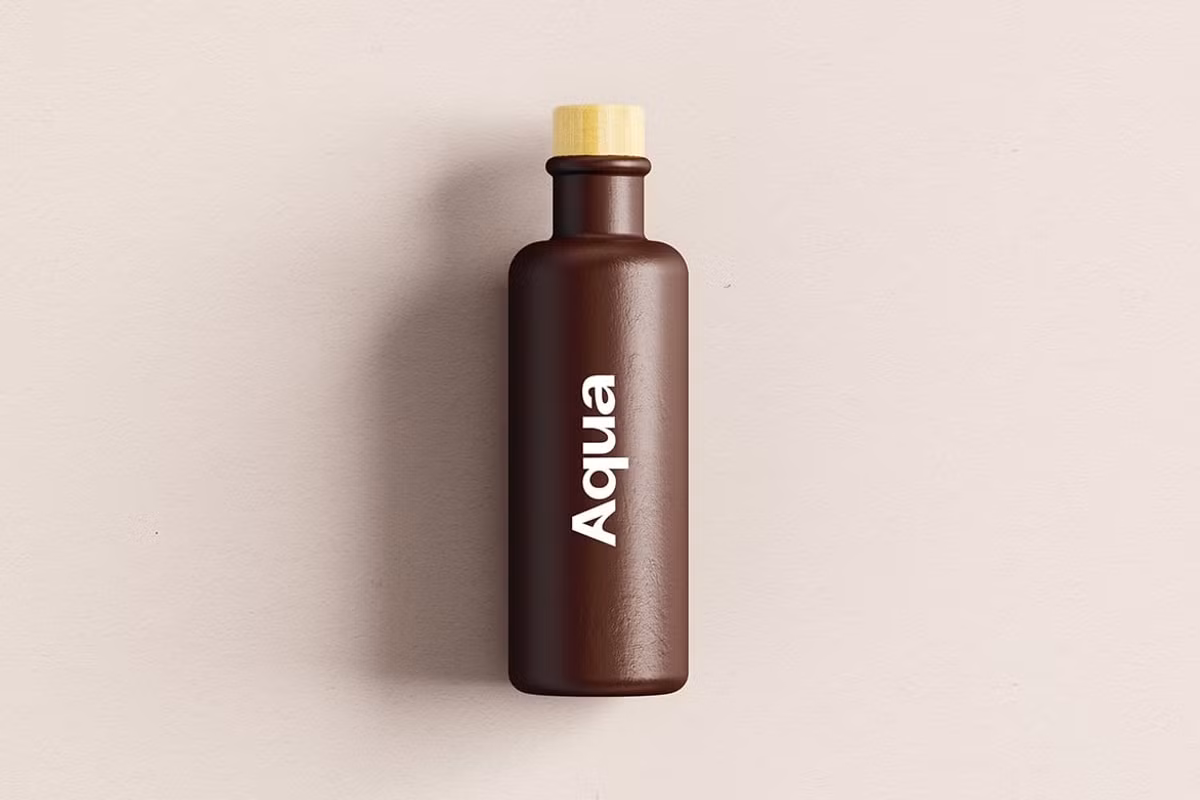
After - Modern Display
After: Sleek Sans-Serif Typeface for Modern Design Projects
Introducing After Typeface
After is a simple yet stylish font that’s perfect for modern design projects. It’s great for designers and creatives who want to add a touch of sophistication to their work. This font is all about balance – it’s easy on the eyes and works well with all sorts of projects, from branding to web design.
With its clean lines and modern feel, After is a versatile font that can enhance any design without overpowering it. Whether you’re working on a website, a logo, or something else entirely, this font is a great choice because it’s both beautiful and functional. It’s ideal for anyone who wants to create something that looks great and works well too.
Example of modern design using After Typeface
Design Style of After
The design of After is characterized by its elegant and minimalist approach. This sans-serif typeface features balanced proportions and refined letterforms that ensure outstanding readability. The clean lines and contemporary feel of After make it suitable for both print and digital media.
Its modern aesthetic seamlessly fits into any design context, allowing your projects to shine with professionalism and clarity. The characters in After have been carefully designed to work well together, creating a consistent look throughout your design.
Character Sets and Versatility
After gives you a full set of characters, including big and small letters, numbers, and punctuation marks. This wide range makes it useful for many different design projects. You can use it to make logos, headings, presentations, or layouts for articles – it’s flexible enough to help you get your point across in the way you want.
• Uppercase and Lowercase Letters: Well-crafted modern letterforms that enhance readability.
• Numbers: A complete set of digits that complement the overall design aesthetic.
• Punctuation: Essential symbols included to provide a full typographic experience.
Character set example of After Typeface
With this complete character set, After ensures that your designs are not only visually appealing but also functional and communicative.
Use Cases for After Typeface
After is really versatile, which makes it perfect for all sorts of design projects. Here are some great examples of where After can take your work to the next level:
• Branding: Create memorable logos and brand identities with After’s modern and professional appearance.
• Web Design: Use After in your website’s typography to ensure a clean and user-friendly experience for visitors.
• Editorial Layouts: Incorporate After into magazines, brochures, and flyers for a polished and sophisticated look.
Make your presentations stand out with After, where you can make sure your text is easy to read and looks great too. This way, you can create a lasting impression on your audience.
Application of After Typeface in editorial designs
By leveraging After in these various contexts, you can enhance the visual appeal and effectiveness of your design projects.
Pairing Suggestions for After Typeface
To get the most out of After, try combining it with other fonts that complement its look. This can really make it stand out. Here are some suggestions for pairings that work well:
• Serif Fonts: Pair After with a classic serif typeface, such as Times New Roman or Georgia, to create contrast and a visually appealing hierarchy.
• Display Fonts: Combine After with a bold display font for headlines, such as Bebas Neue, to create a striking contrast that draws attention.
• Monospace Fonts: For a modern tech look, pair After with a monospace typeface like Courier New to give a unique flair to your designs.
Experimenting with these pairings can help you achieve a balanced and harmonious typographic composition, making your projects stand out even more.
The font After was carefully created by Webhance Studio and can be used in many different ways. You can get After in a few different formats like OTF and TTF, and it also works with web fonts like EOT, TTF, WOFF, and WOFF2.
After is a great font that looks really good and is easy to use. It’s simple, but still elegant, and it has all the letters and symbols you need. This makes it perfect for all kinds of design projects, like making brands look cool, designing websites, or creating magazines and newspapers.
After gives your work a professional touch, making it stand out. If you want your designs to look modern and sleek, After is the way to go. It’s a great choice for anyone who wants to make their work look amazing.